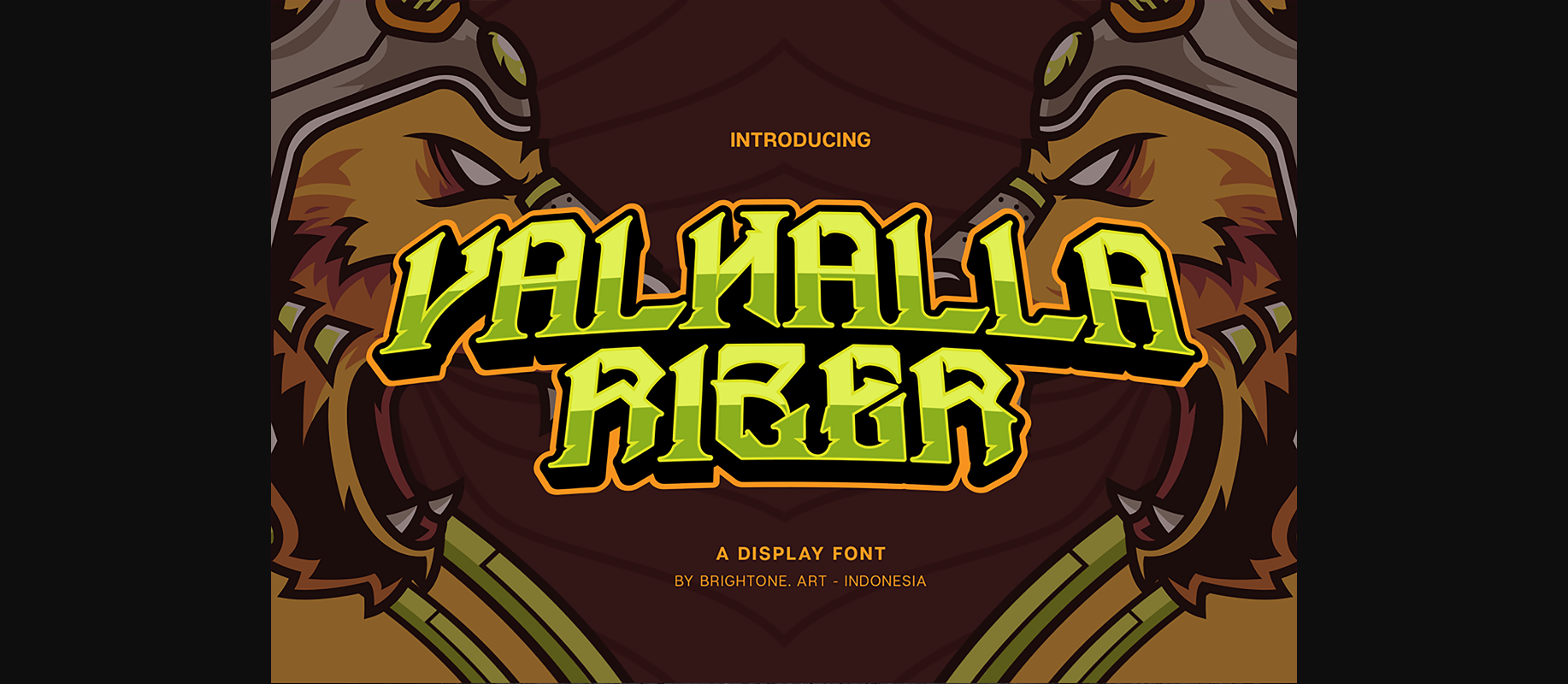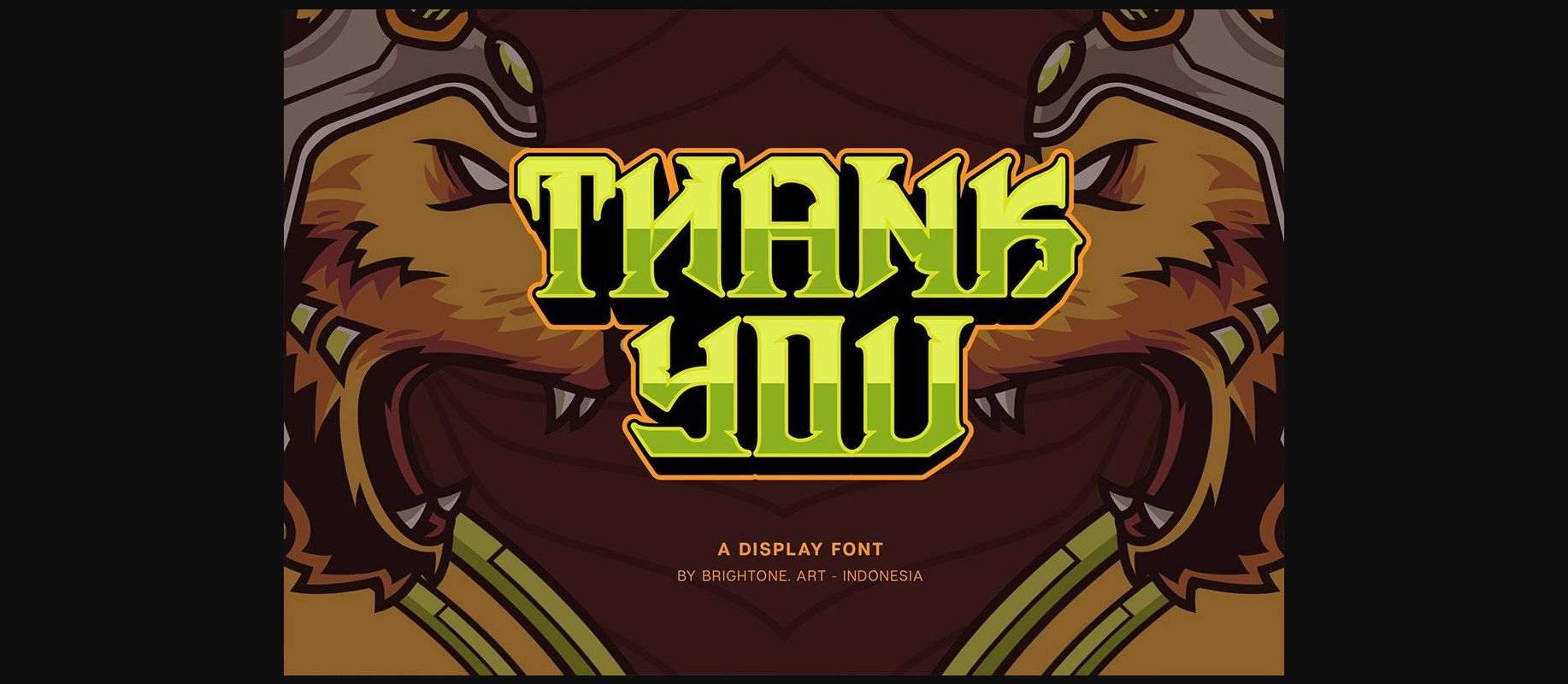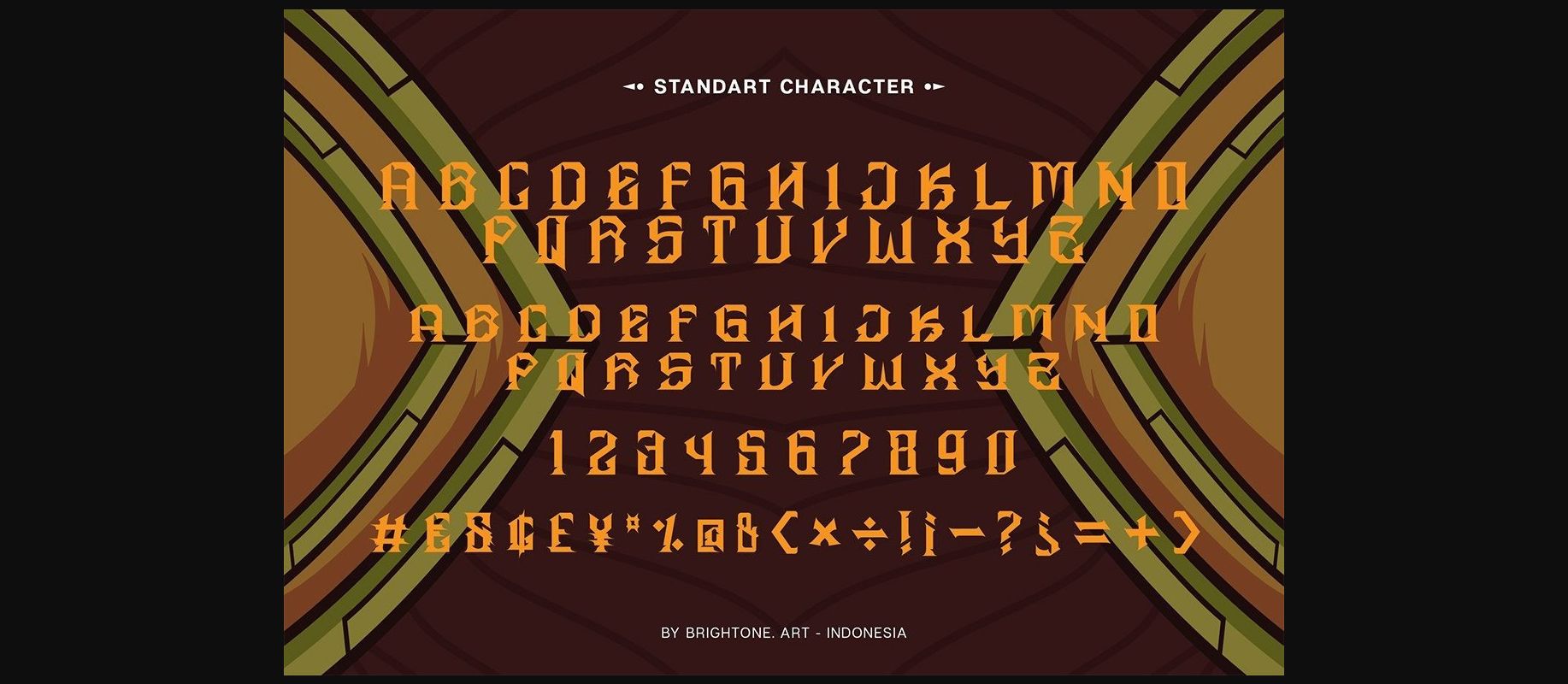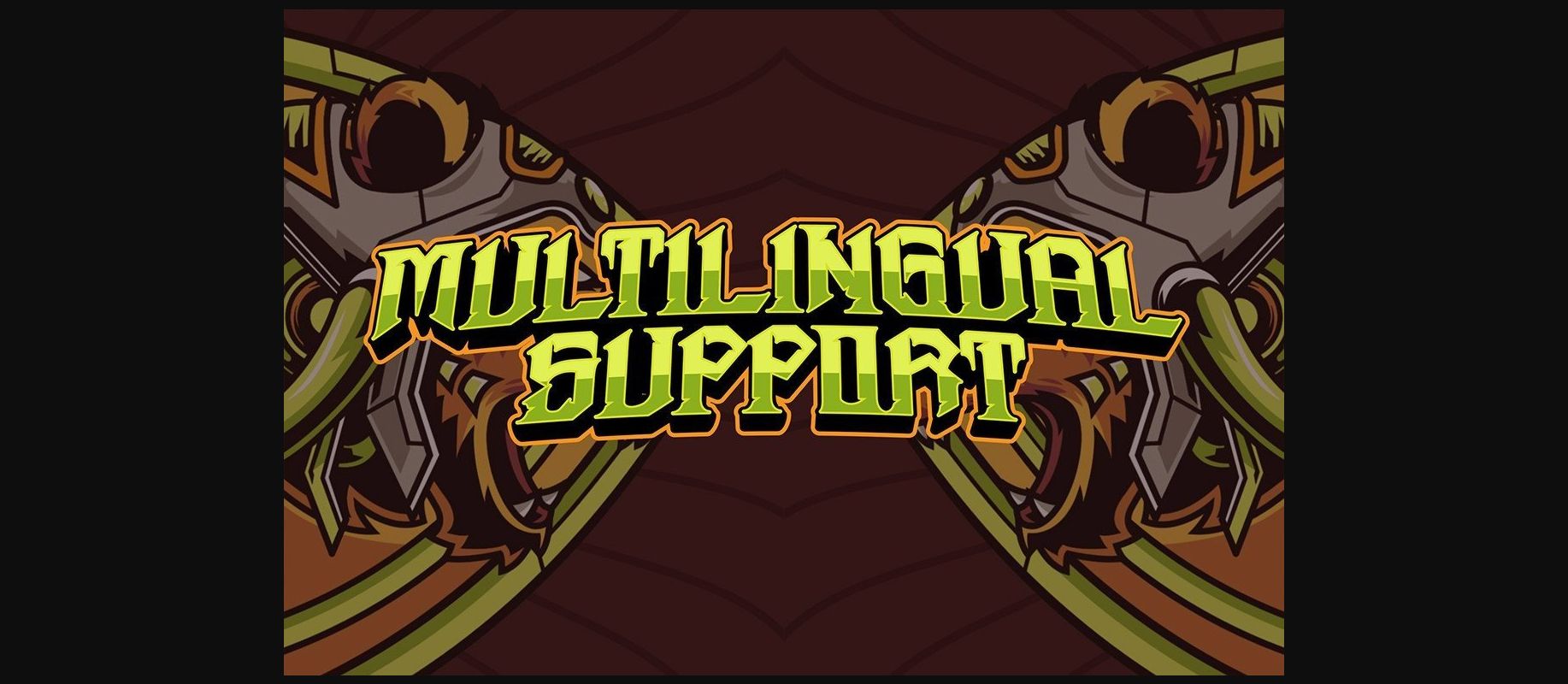
About Valhalla Rizer Font
Valhalla Rizer is a modern font with Esport style included.
Valhalla Rizer font is suitable to use for all-purpose for your logo lettering, logo, label, packaging, Pouch bag sticker, branding and many more